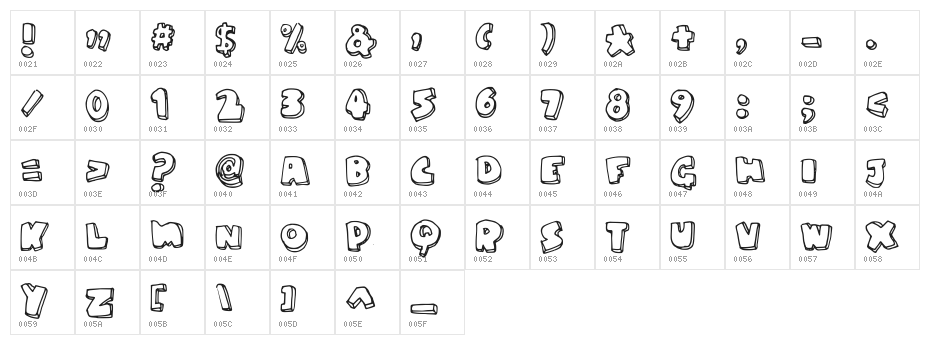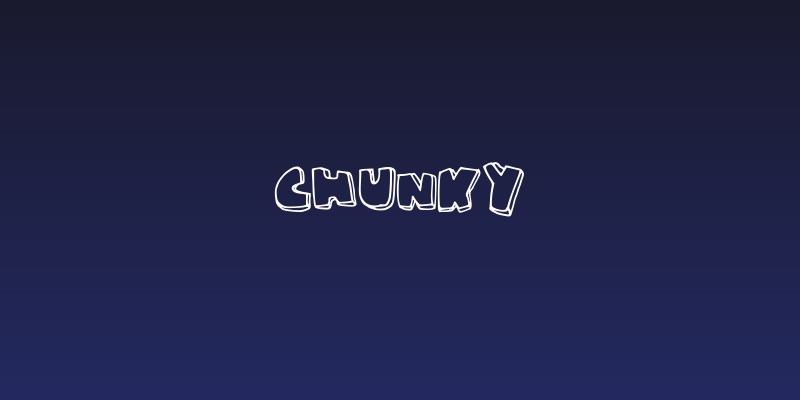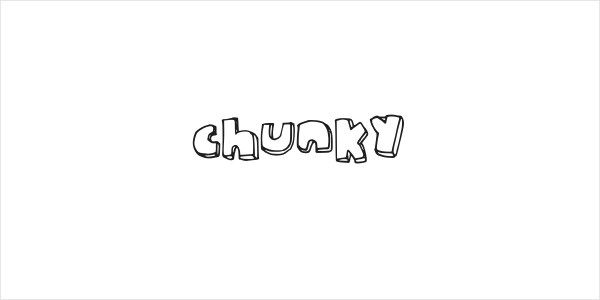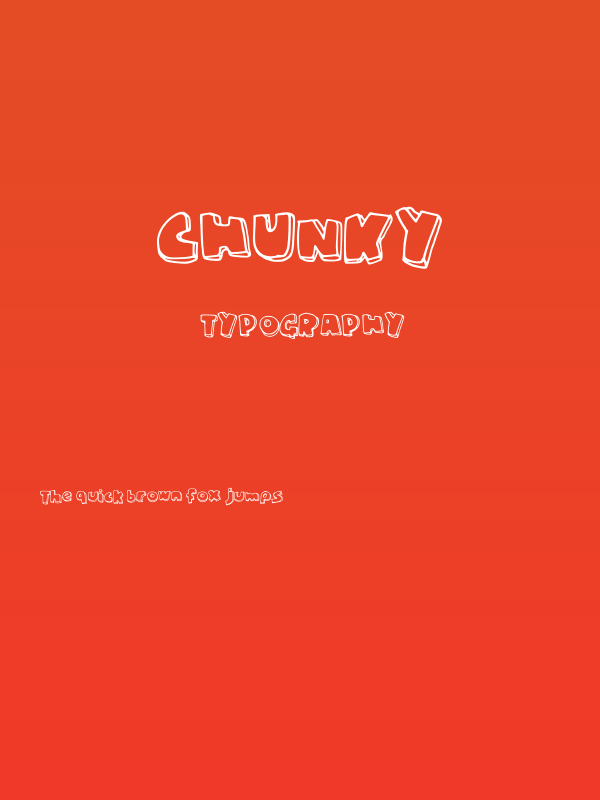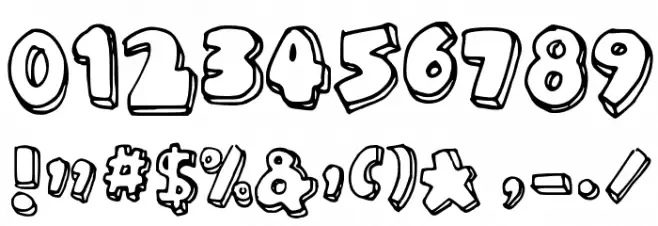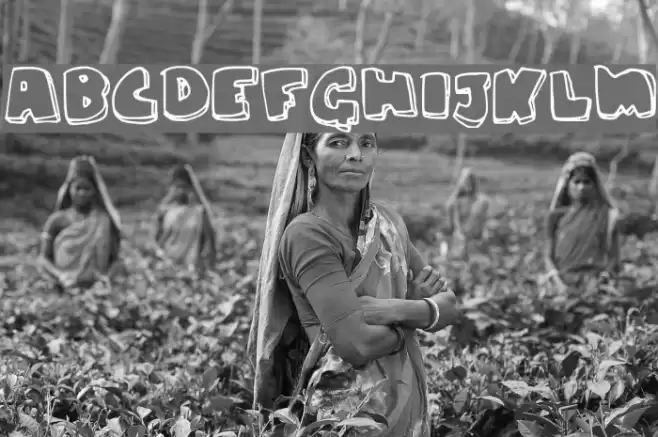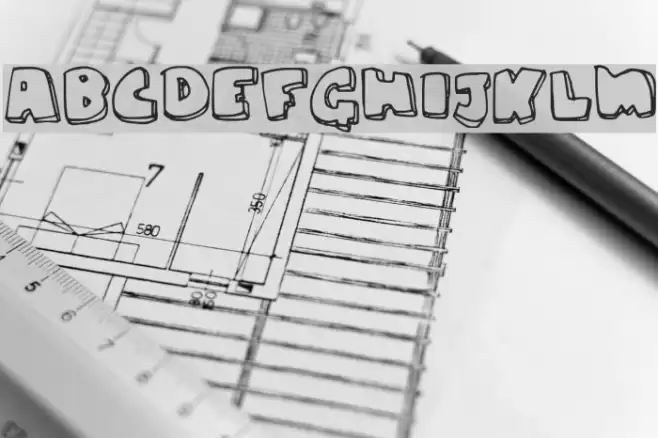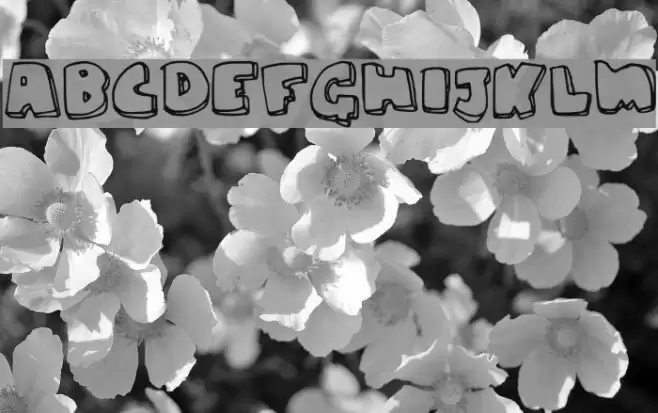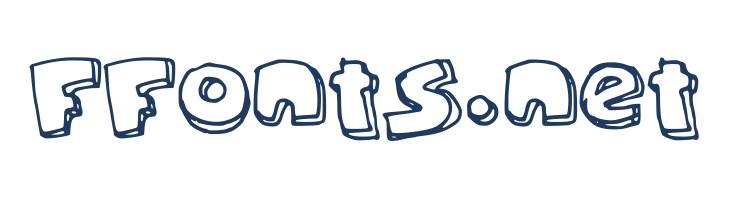
chunky Font
This playful and bold font features thick, chunky letters with a three-dimensional effect, giving it a fun and dynamic appearance. The characters are outlined with a black border, enhancing their visibility and adding a cartoon-like quality. The font maintains a consistent weight throughout, with rounded edges that soften its overall look. Its unique style makes it stand out, perfect for capturing attention in creative projects. The numbers and special characters follow the same design principles, ensuring a cohesive look across all text elements.
| Overall Style | Playful, Cartoonish |
| Proposed Projects | Ideal for children's books, comic strips, playful branding, and eye-catching posters. |